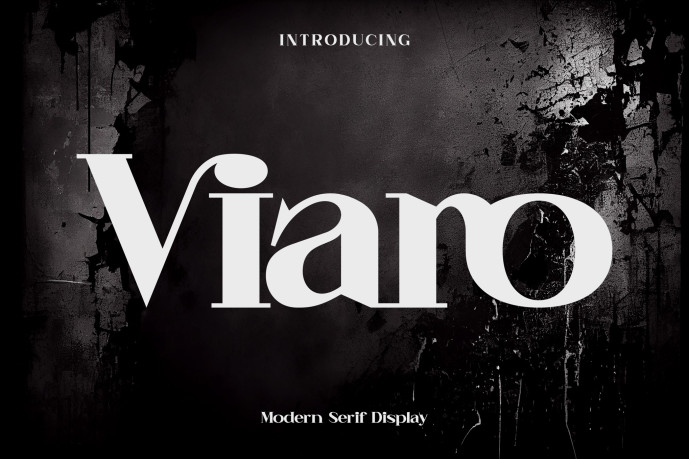
Viaro Font
Designer: maxhendra27
Viaro Font is a super thick typeface with more traditional letter shapes, making it perfect for creating (or recreating) the concise look of film poster production credits.